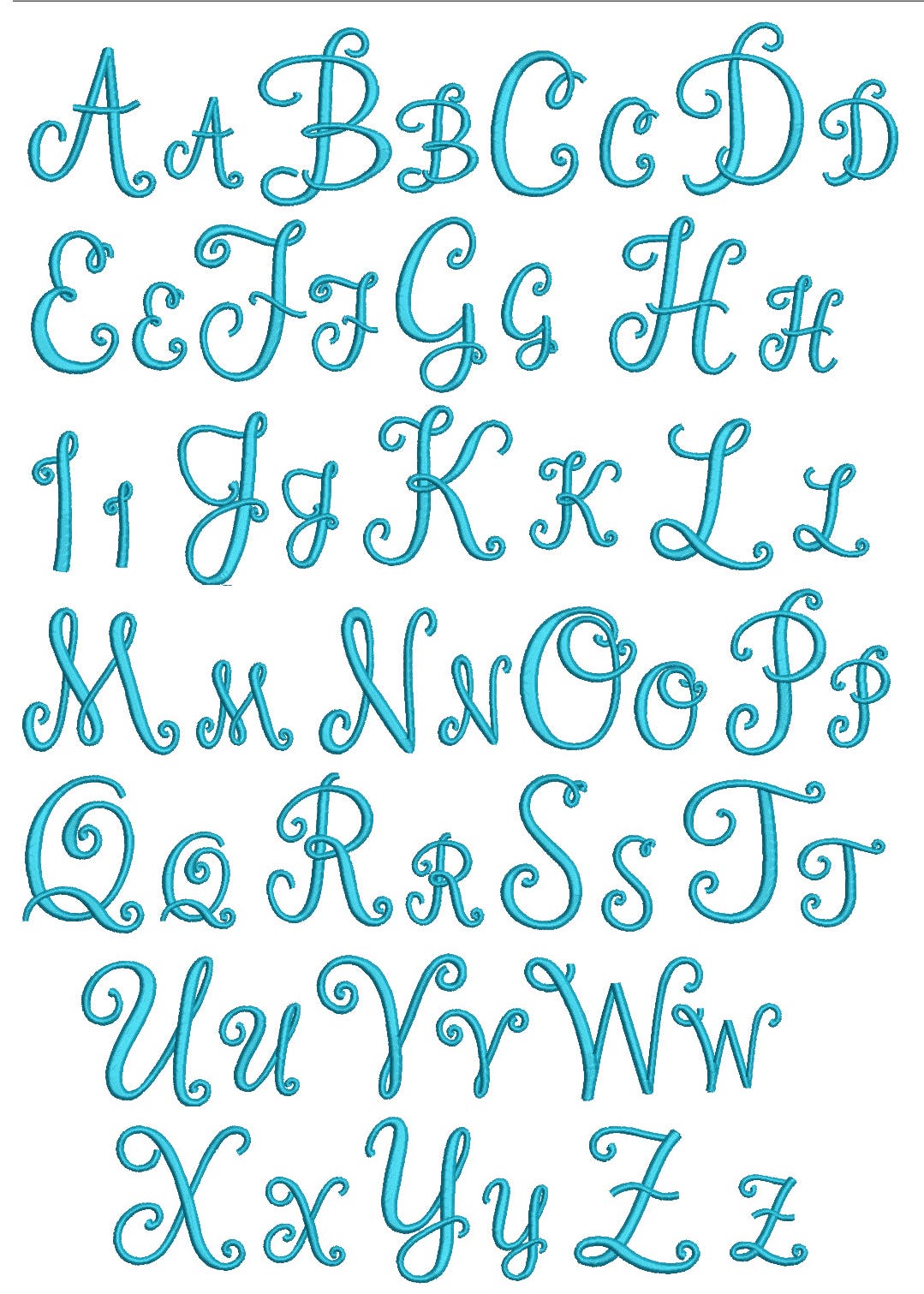
Janda Stylish Satin Stitch Monogram Embroidery Font
This is a lovely "stylish" monogram with all very "readable" letters. Each size includes the center letter and corresponding side letter. All of our font alphabets are 100% manually digitized to bring you maximum stitch quality.